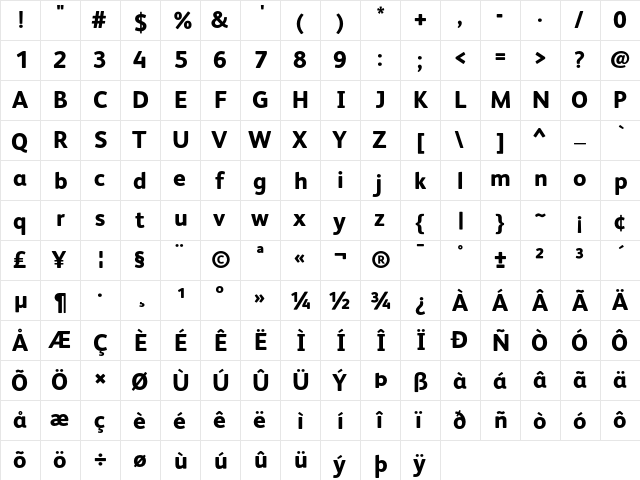
FSAlbert ExtraBold
| Foundry | Designed & produced by Jason Smith |
Design Context for FSAlbert Typeface
FSAlbert offers clean, dependable letterforms without strong stylistic allegiance, making it a practical choice for designers who need flexibility. Its bold stroke weight gives it real presence on the page.